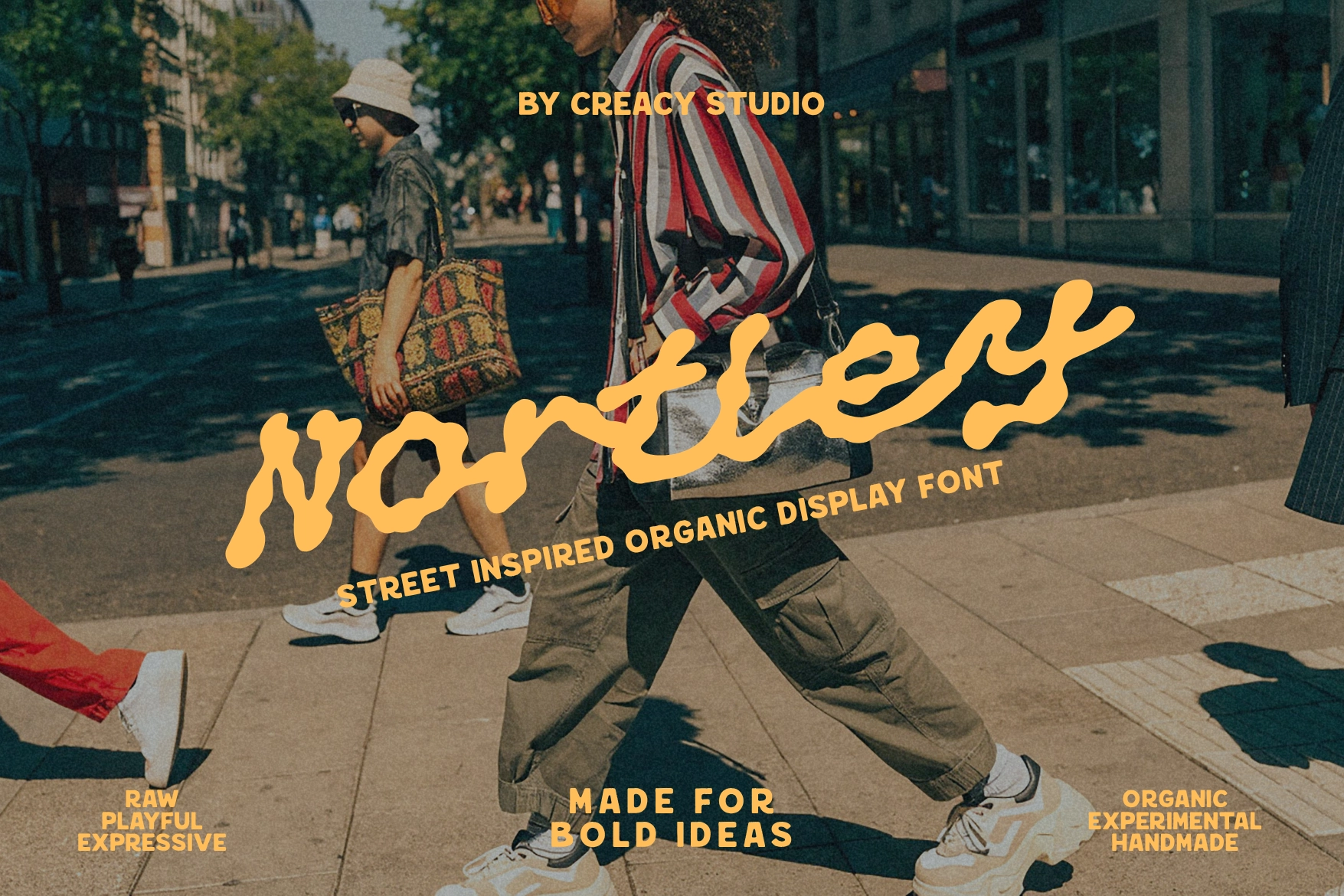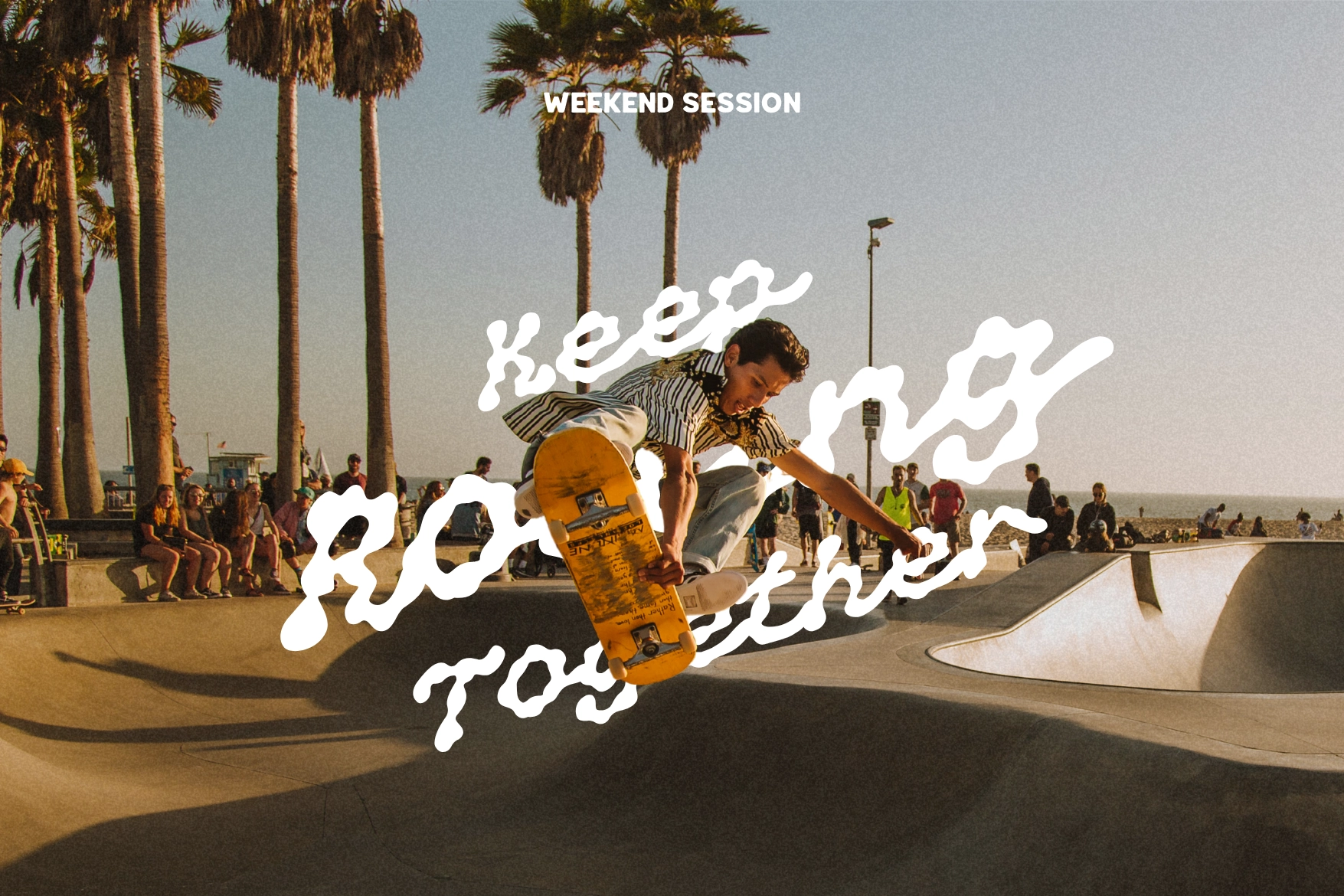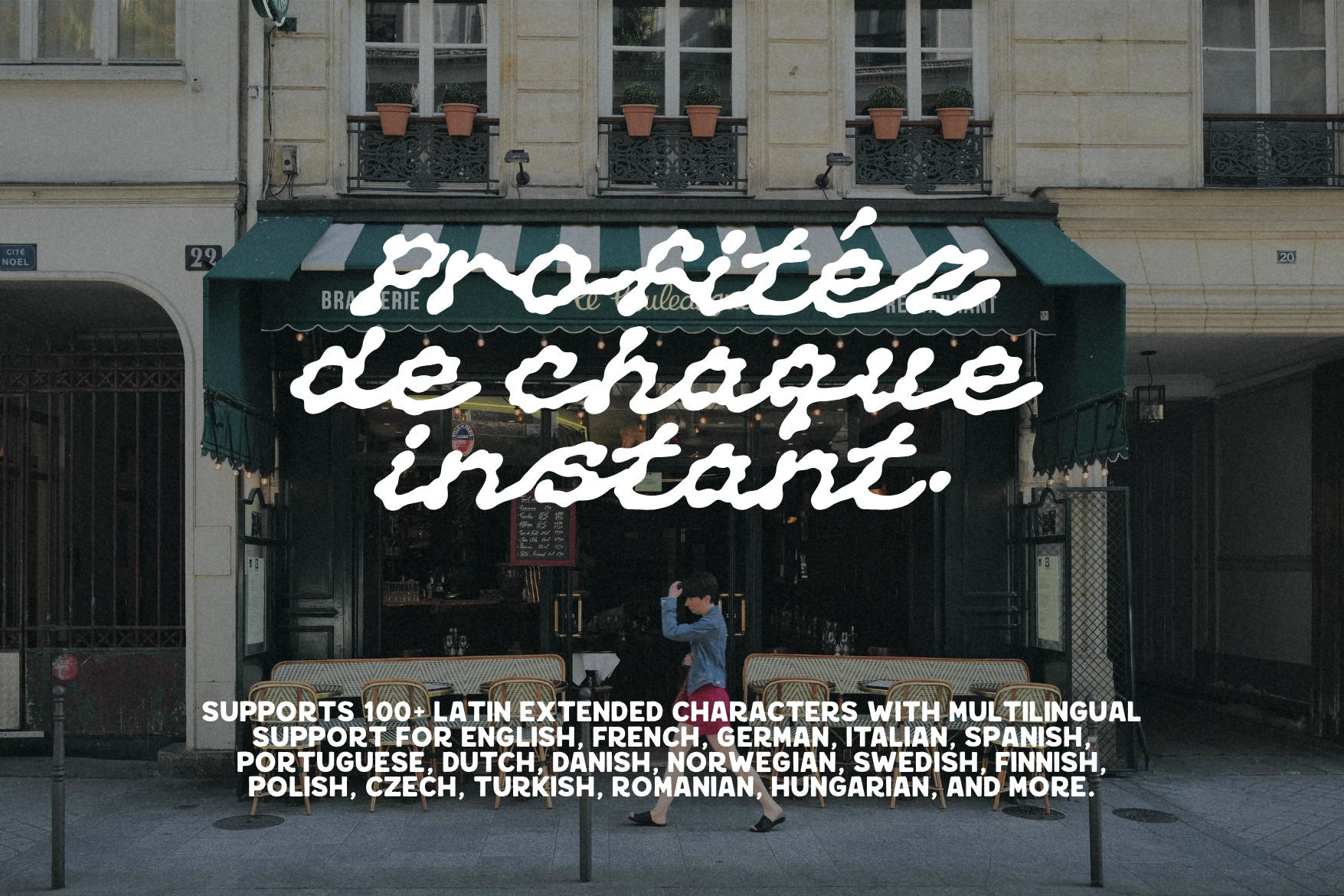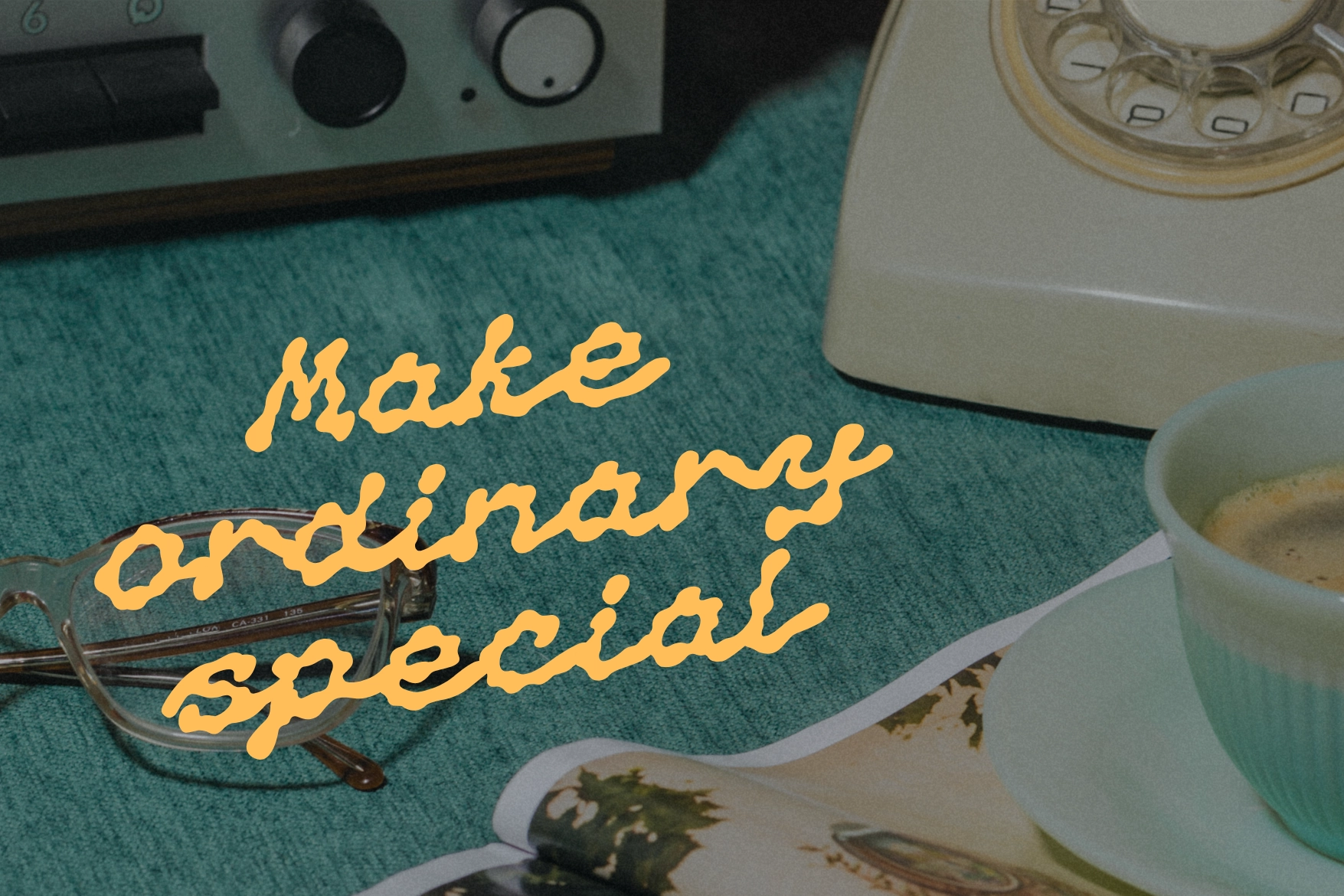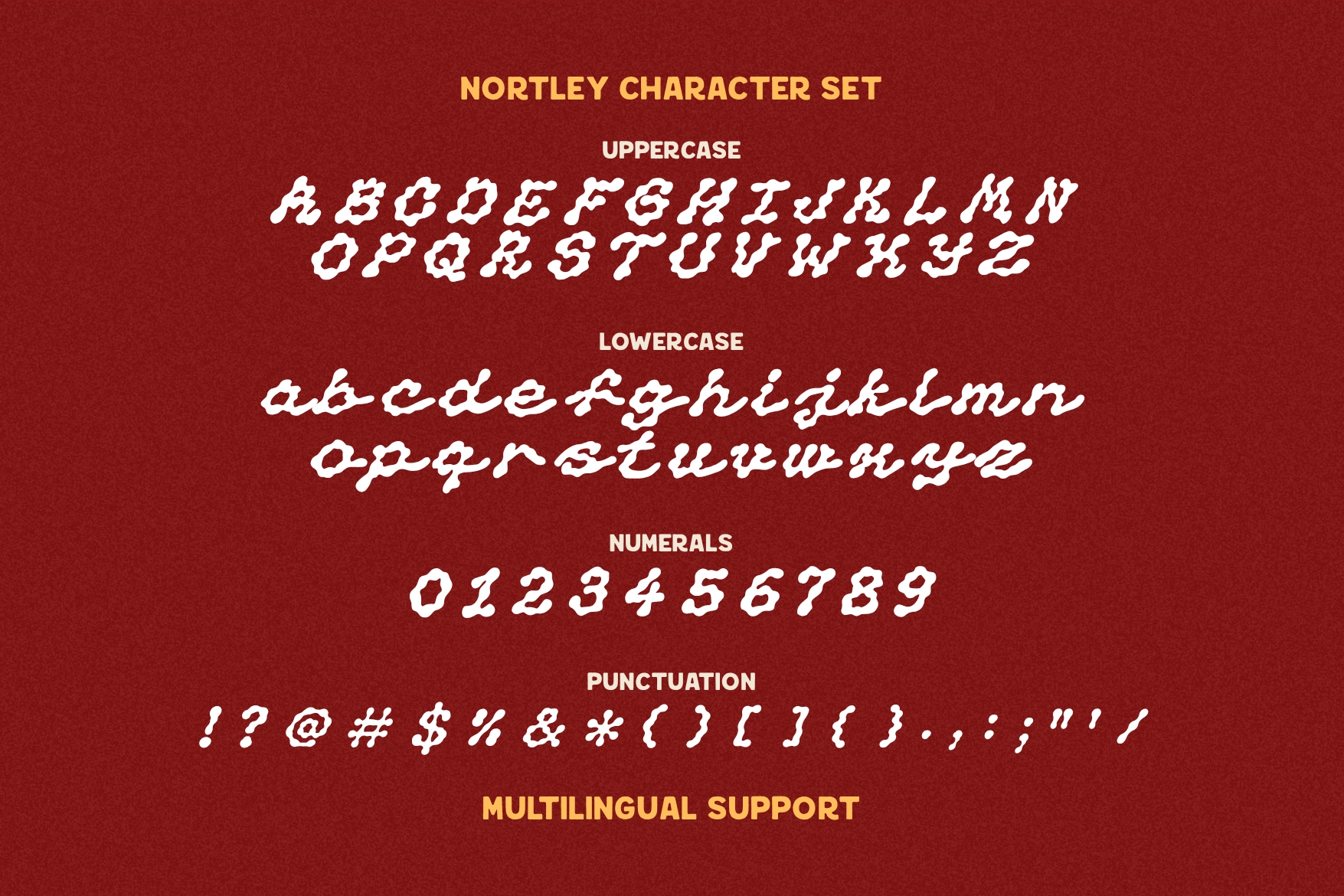
Nortley – Bold Street Graffiti Font
Nortley
Nortley leans on raw street lettering — spray-tag curves, loose hand-drawn wobble, and an unfinished edge — landing as a bold street graffiti font built for shouting rather than whispering. It reads as if every letter got scrawled fast and left to dry crooked, with strokes that bulge and dip in uneven waves so no two characters sit at quite the same height.
It holds its swagger equally well stretched across a skate deck or squeezed into a single-word logo mark, and the connected lowercase keeps that same melting rhythm at any size. Use it for streetwear logos, gig posters, skate and surf branding, café signage, and social campaign type.
- Uppercase & lowercase;
- Numerals & punctuation;